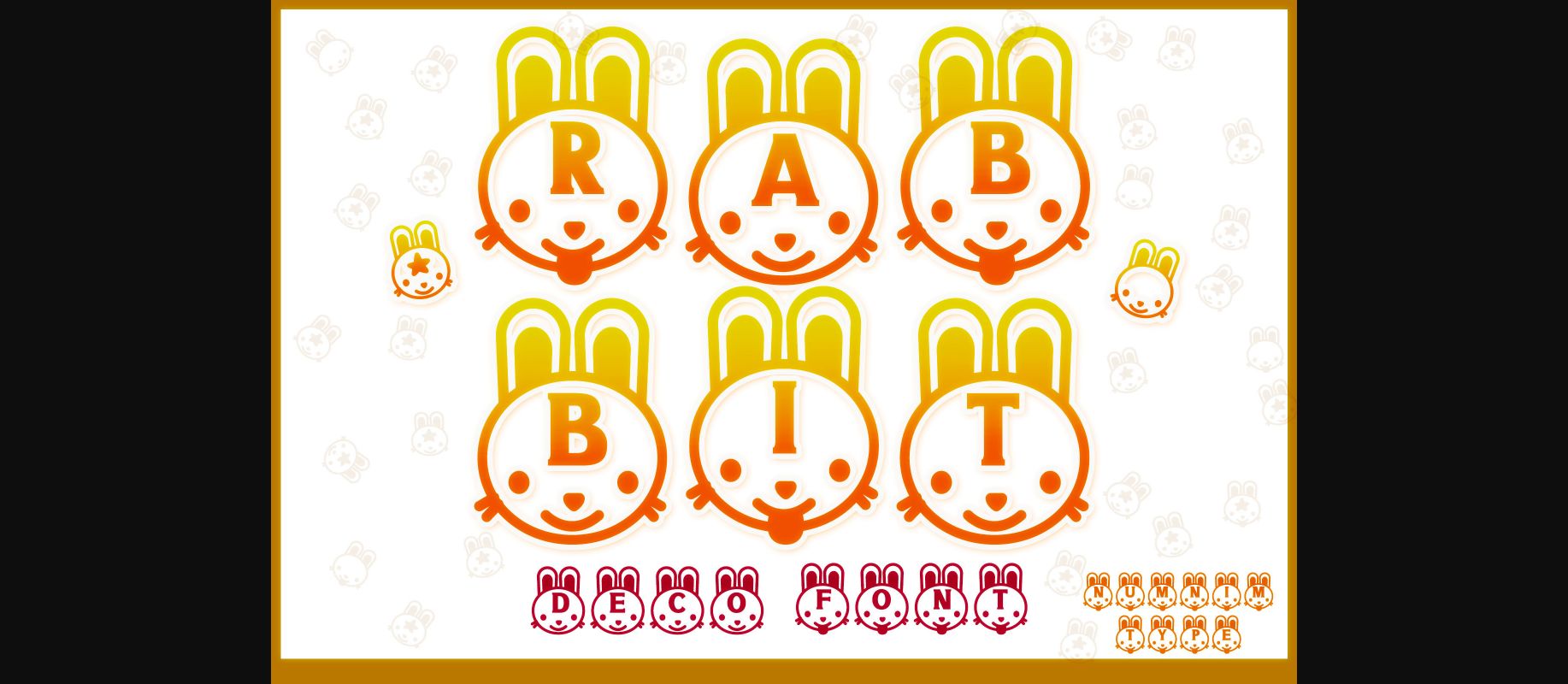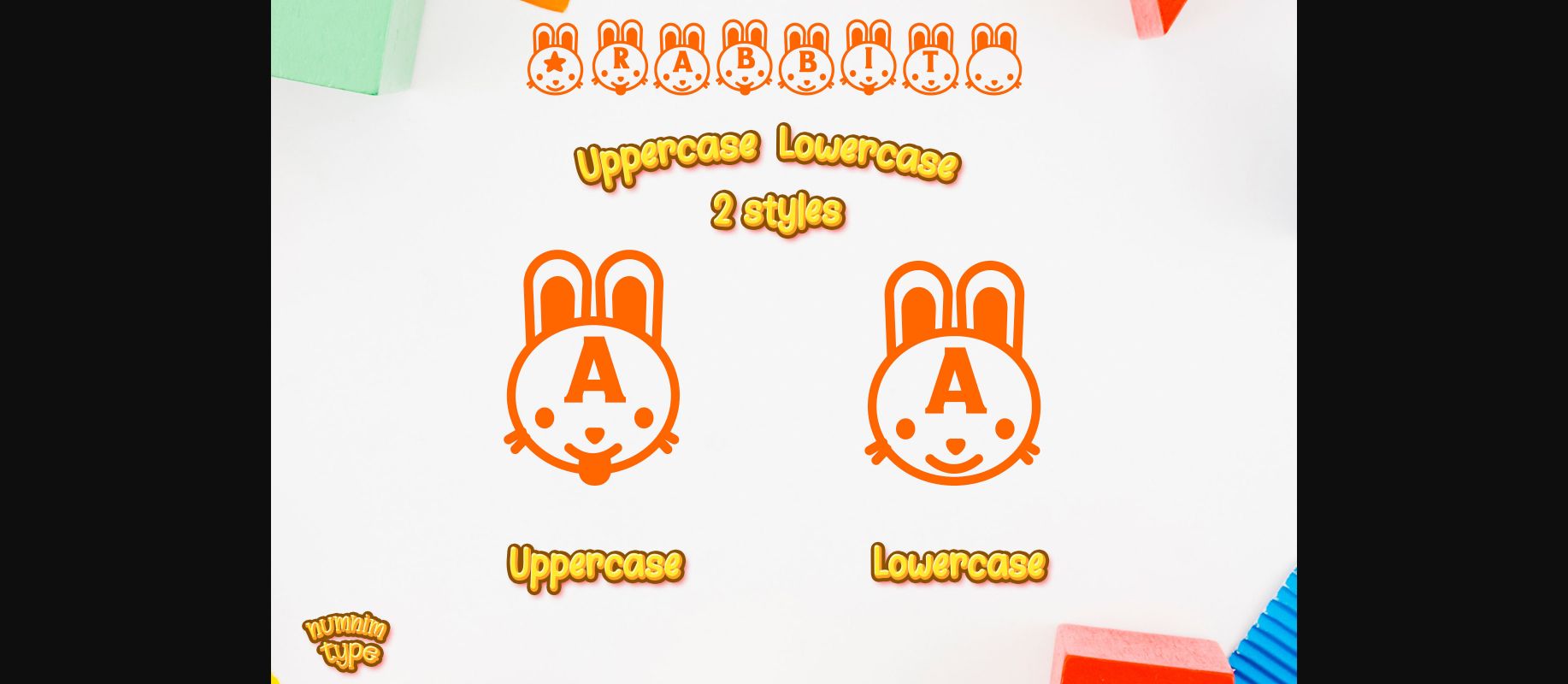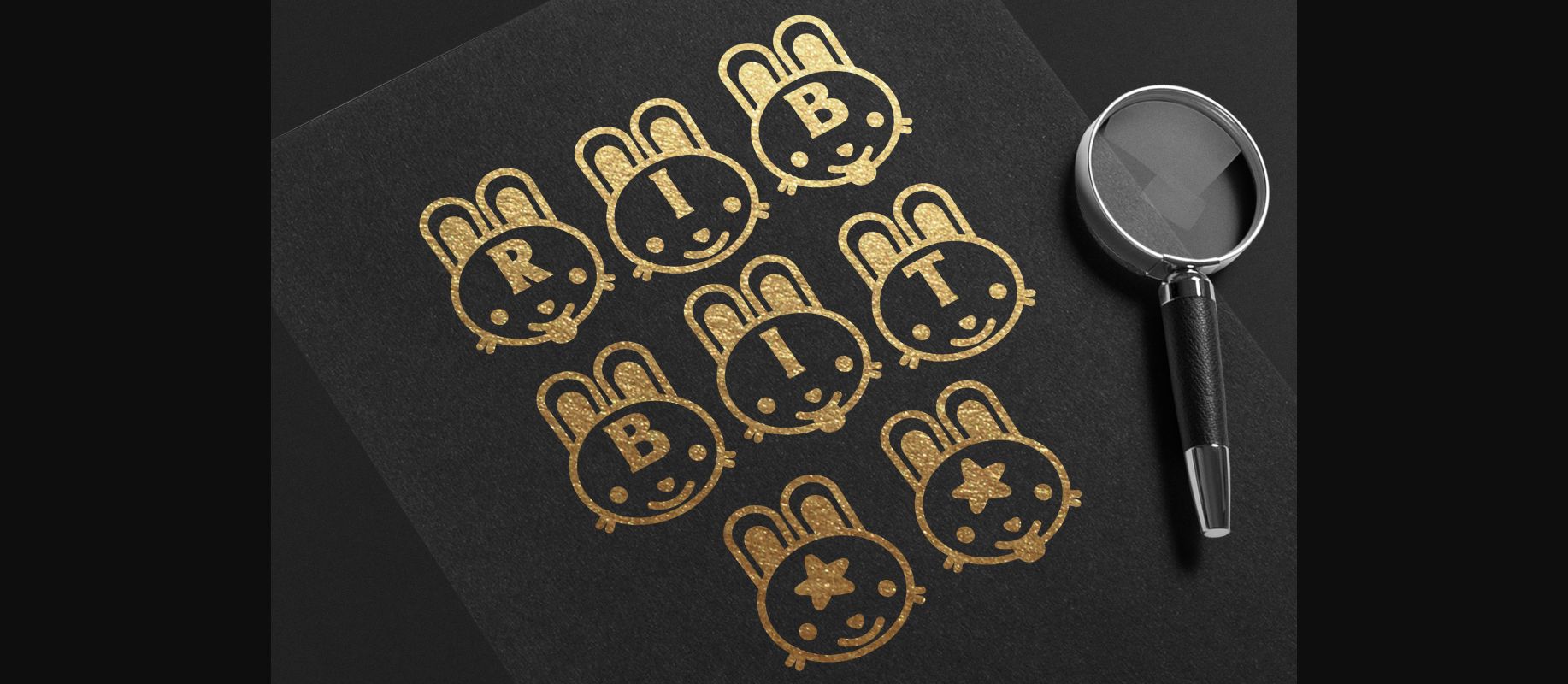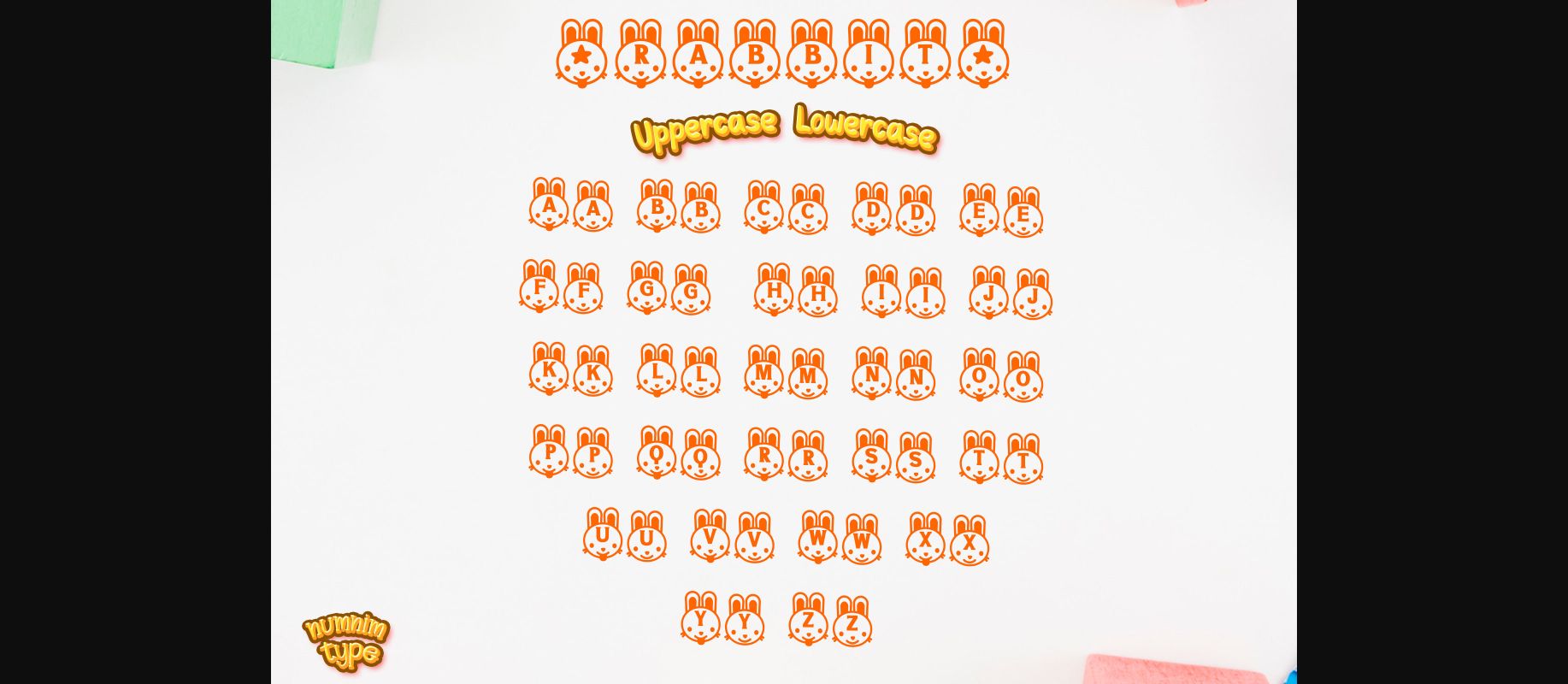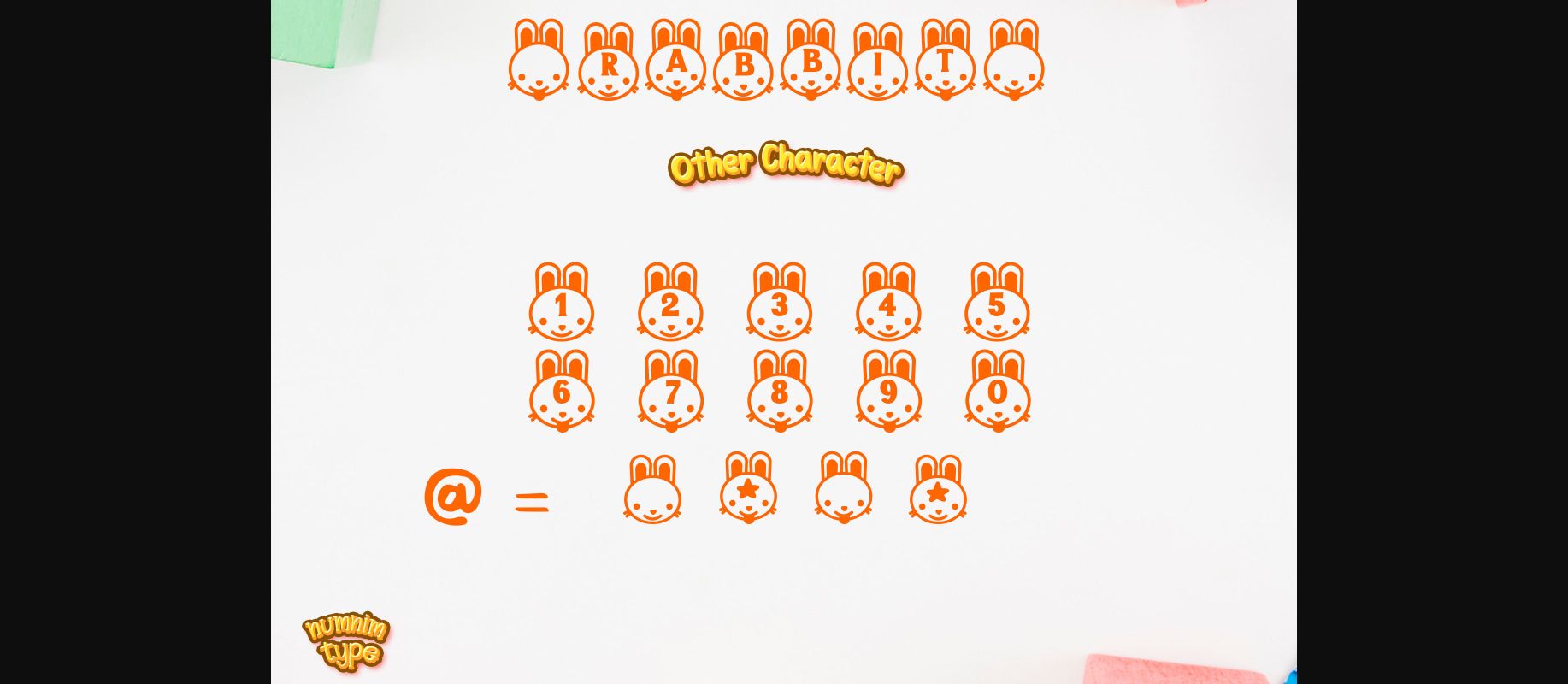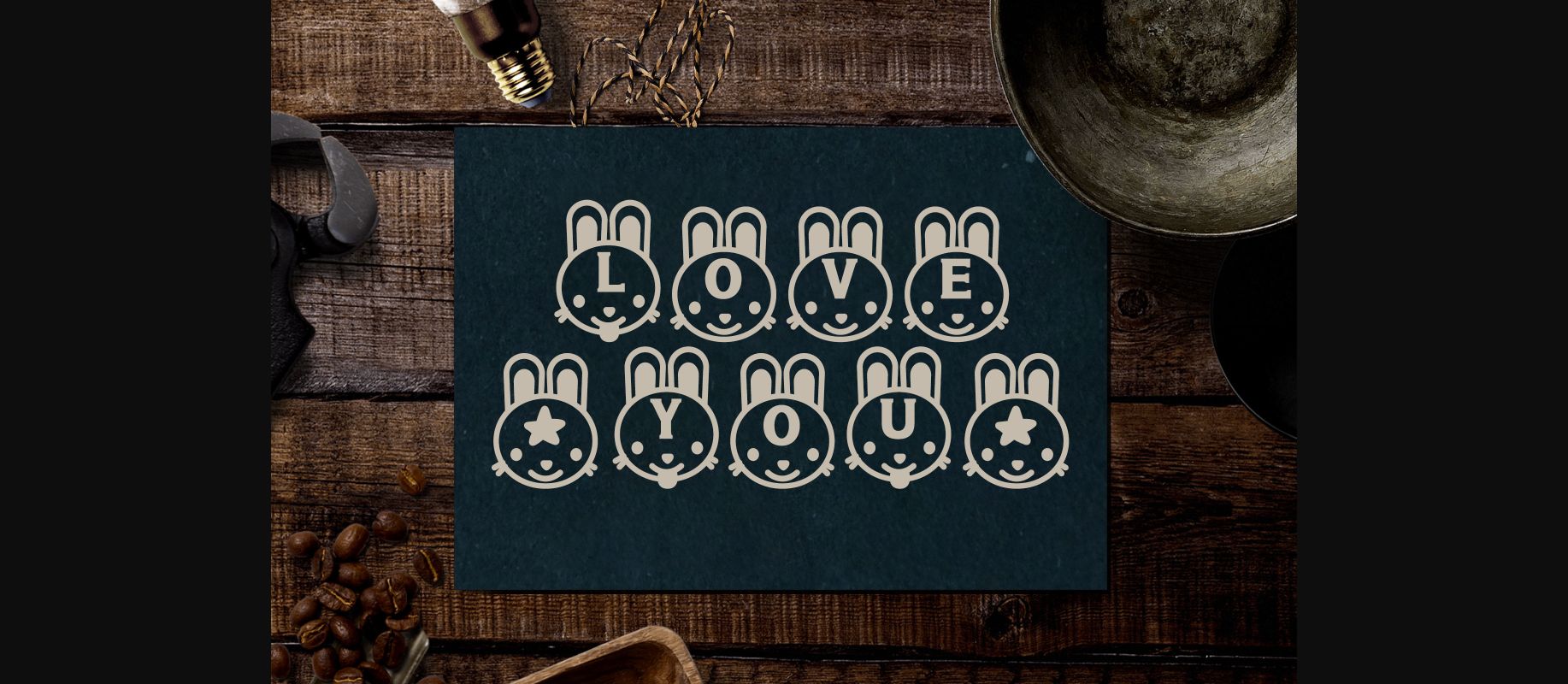
HomeDecorative FontsRabbit Font Decorative Fonts Rabbit Font FacebookXPinterestWhatsApp 1 of 10 ... Rabbit Font Poster 2... Rabbit Font Poster 3... Rabbit Font Poster 4... Rabbit Font Poster 5... Rabbit Font Poster 6... Rabbit Font Poster 7... Rabbit Font Poster 8... Rabbit Font Poster 9... Rabbit Font Poster 10... About Rabbit Font Rabbit is a cool and uniquely crafted decorative font. Its fun and playful characters make it the perfect font for stickers, mugs, t-shirts, ornaments, kids’ event cards, event invitations, and many more! DOWNLOAD NOW People also explored Mousse Creamy Font White Coffee Cappuccino Mug Mockup with Magenta Pink Tulips Sunderland Font Ikan Tongkol Font Jumpscare Alexio Font Halsey Font Quillain Font Jasver Font 319 0 TagsRabbitRabbit Font Previous articleMenggolo FontNext articleReindeer Font LEAVE A REPLY Cancel reply Comment: Please enter your comment! Name:* Please enter your name here Email:* You have entered an incorrect email address! Please enter your email address here Website: Save my name, email, and website in this browser for the next time I comment. Personal Use Free Font Slice Personal Use Free Read more about this font Mail Ray Stuff Personal Use Free Read more about this font Doriss Girls Family Personal Use Free Read more about this font DangeRNighT Font Personal Use Free Read more about this font BLOG How to Cut Any Font on Cricut: Convert a Font to SVG (Free) Turn any font into a clean SVG so it cuts crisp on Cricut - a quick 3-step workflow using a free font-to-SVG tool. The 10 Best Handwriting Fonts to Add Personality to Your Designs Transform Your Website: Elevate Your Typography with 7 Best Web Font Generators Modern Sans-Serif Fonts That Brands Love in 2025